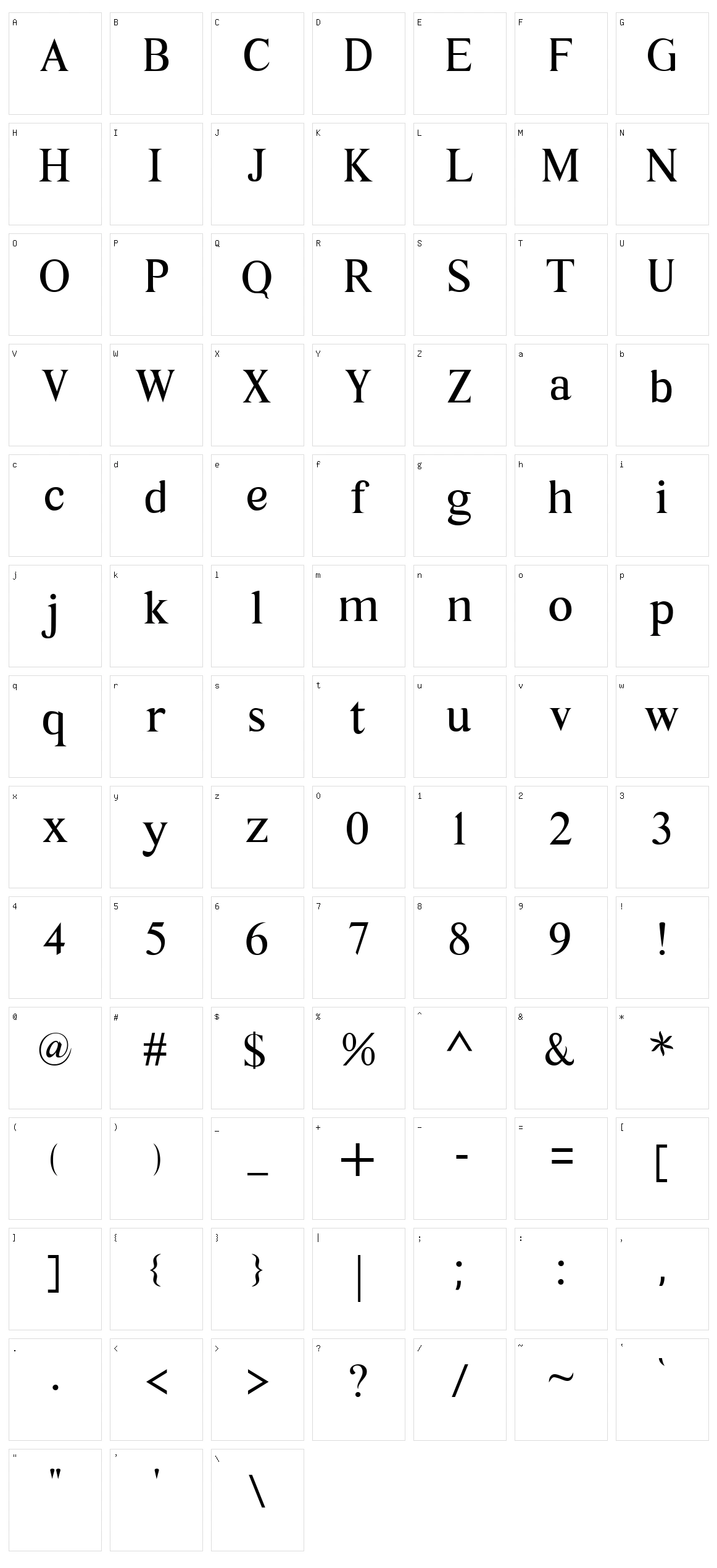
The free font Times New Normal is carefully designed by Juwanda Azi Mayuswa, showcasing a thoughtful balance of creativity and usability and falls under the Serif font style. When you download the ZIP file, it contains only 42.01 KB of font files, making it lightweight and quick to download. Please review the license details below to understand permitted usage and distribution rights. If license information is not available, we recommend using this font for personal projects only or contacting the author directly for commercial usage permissions.